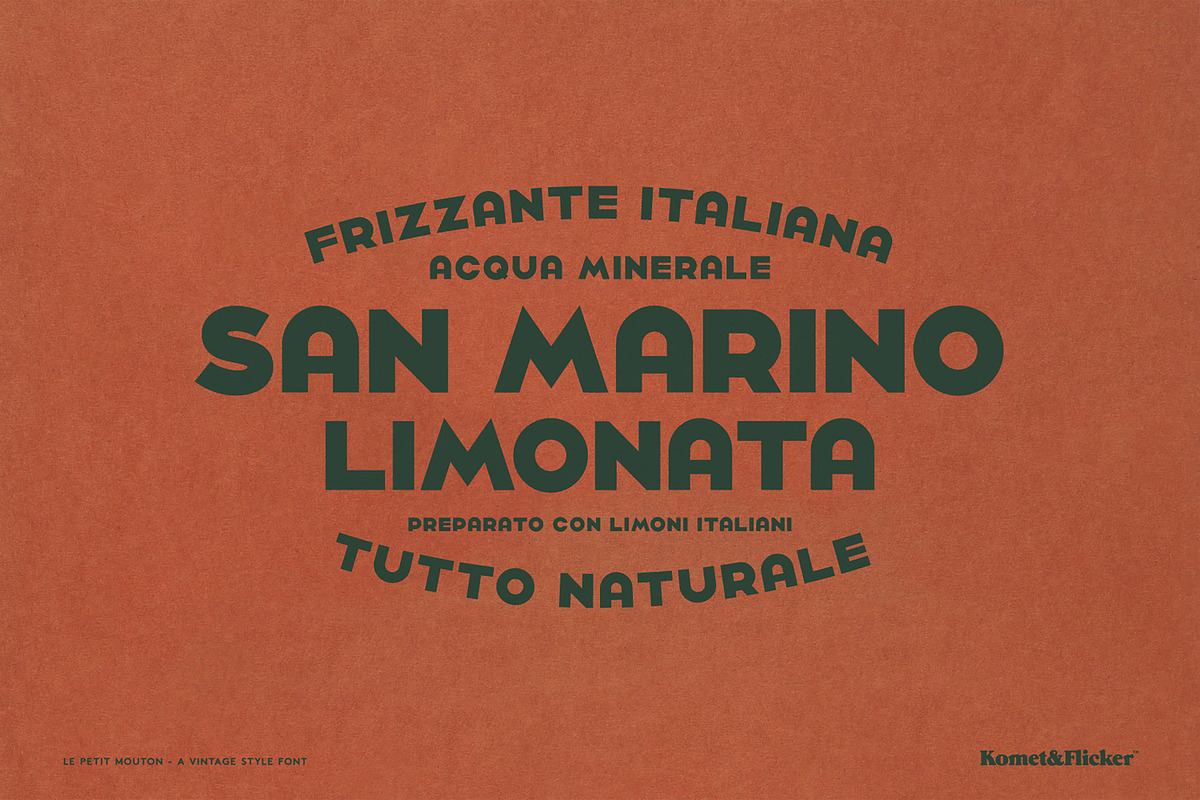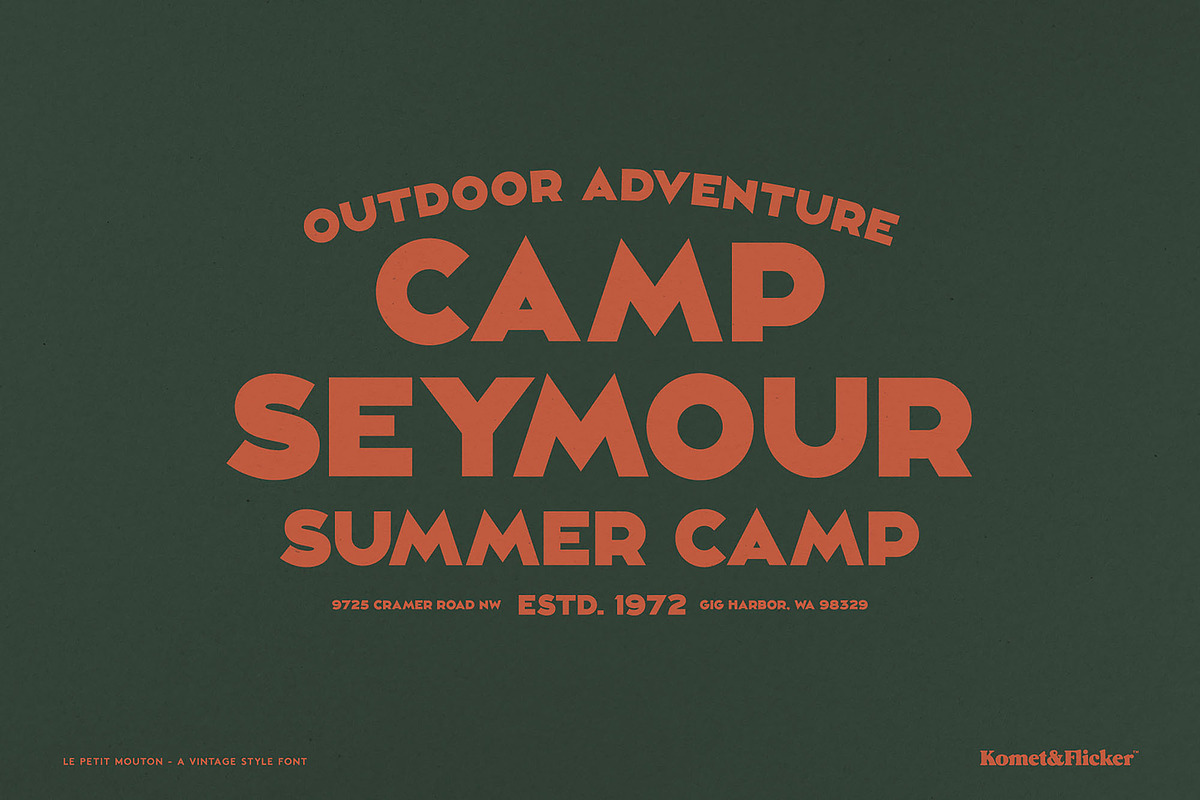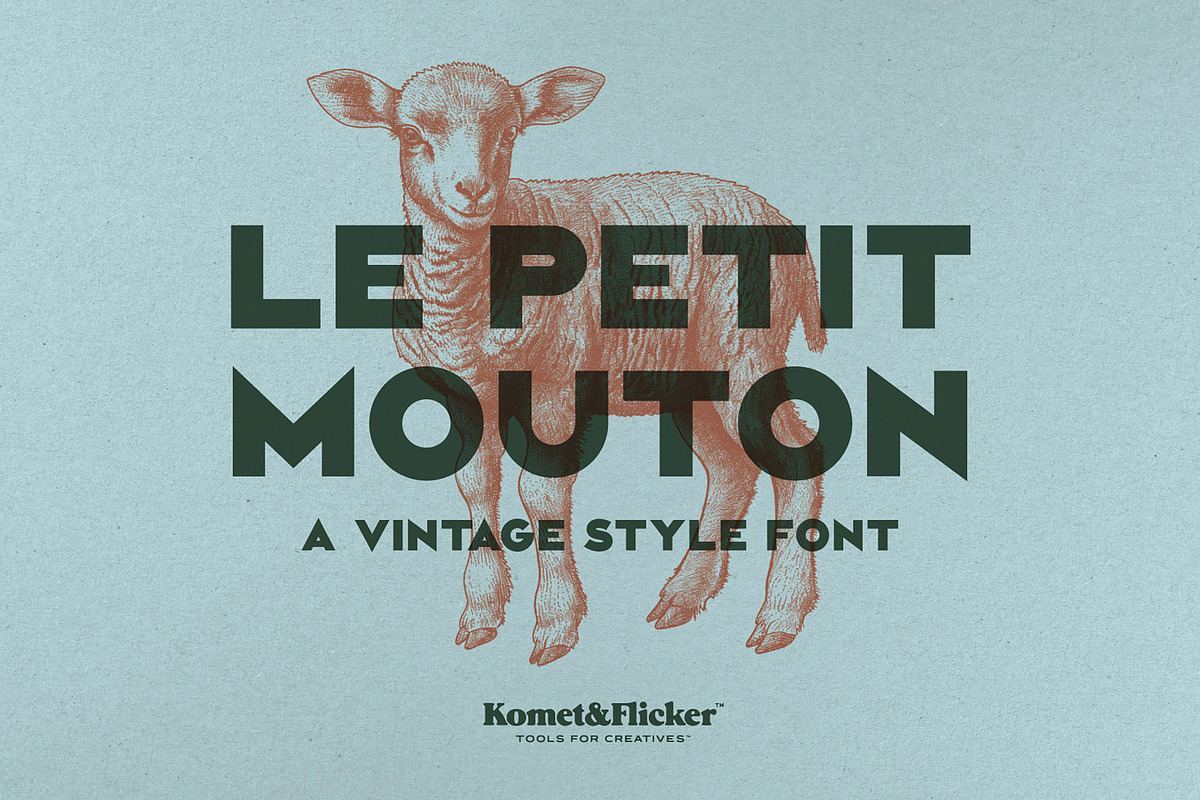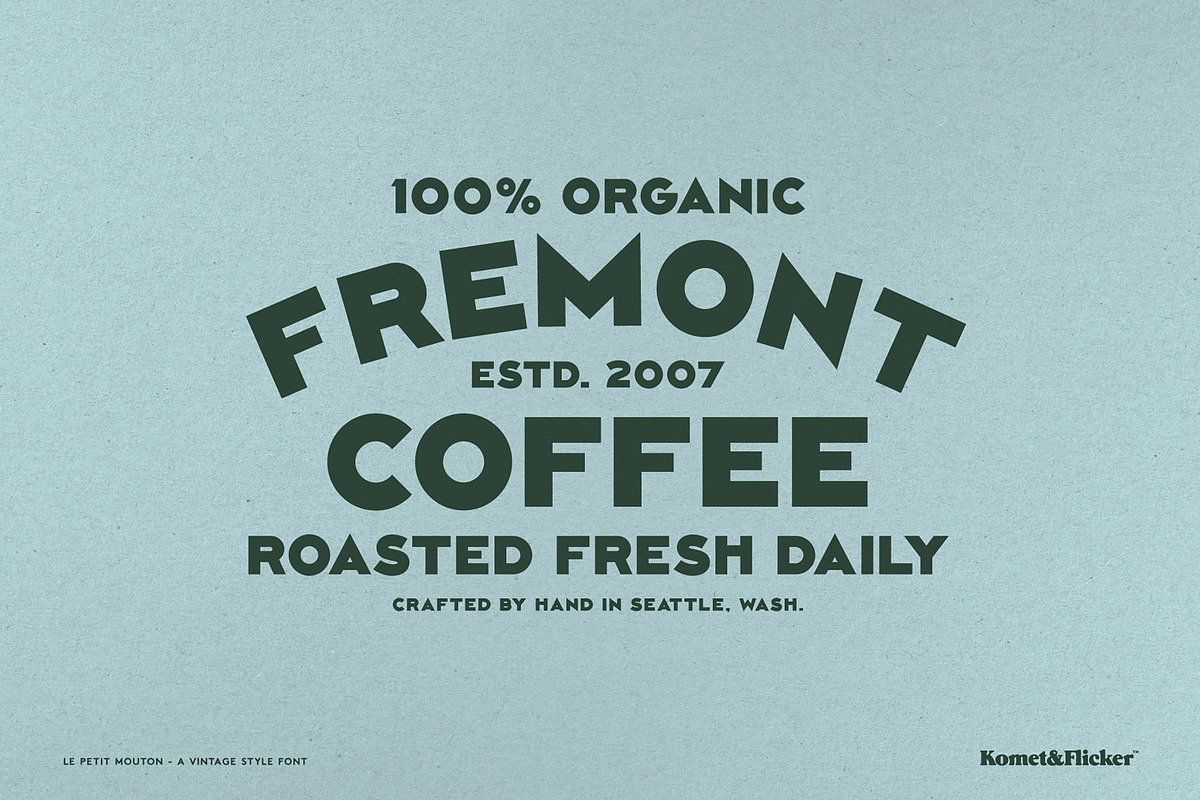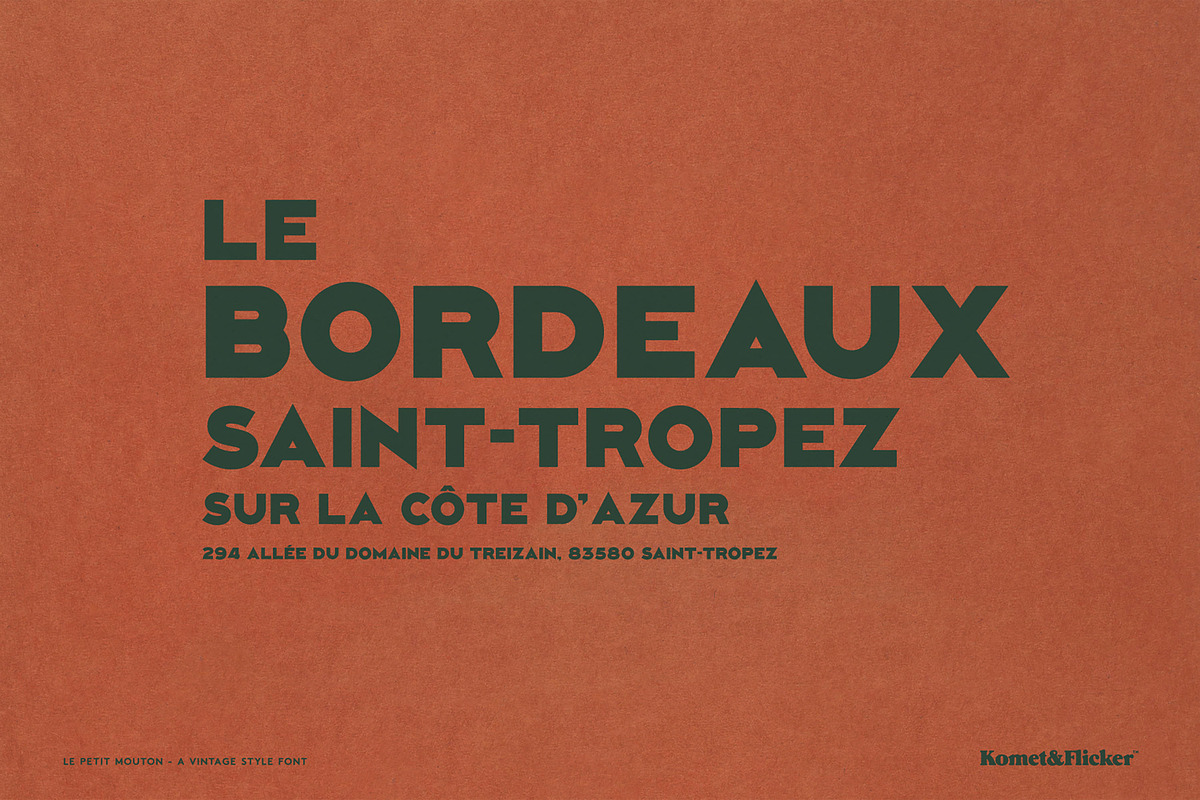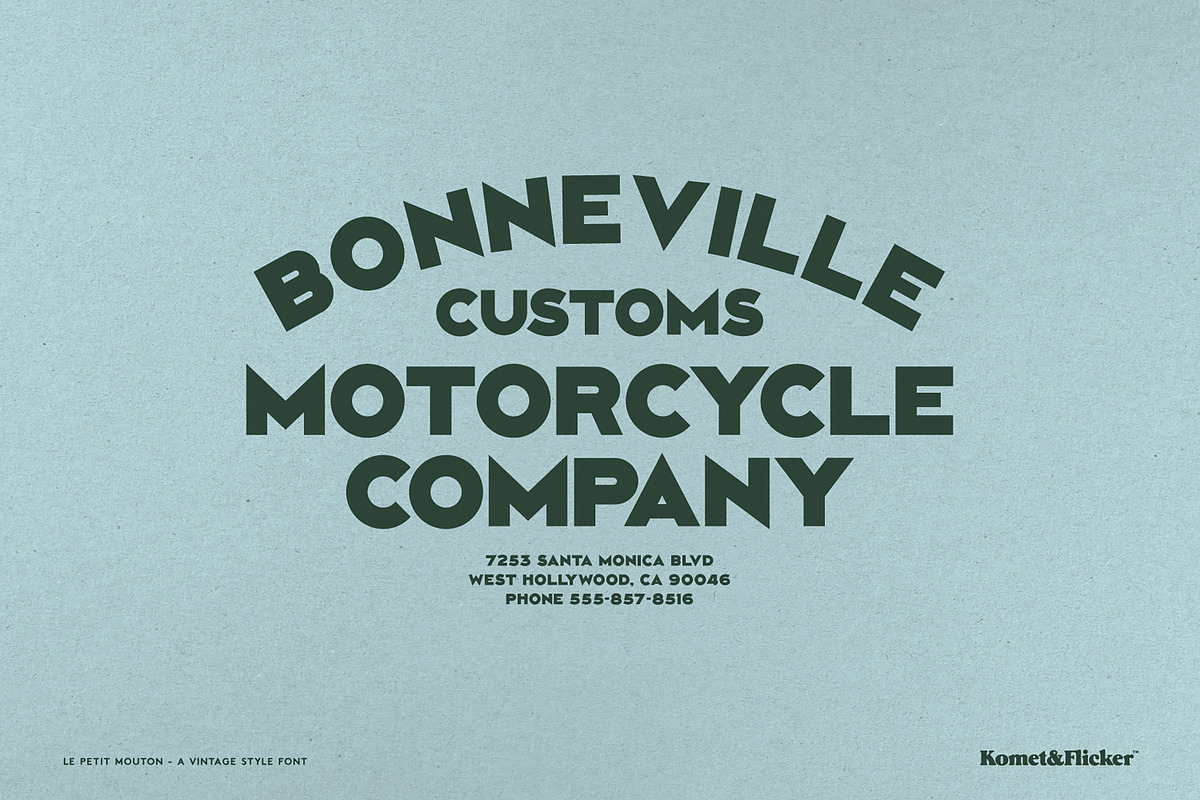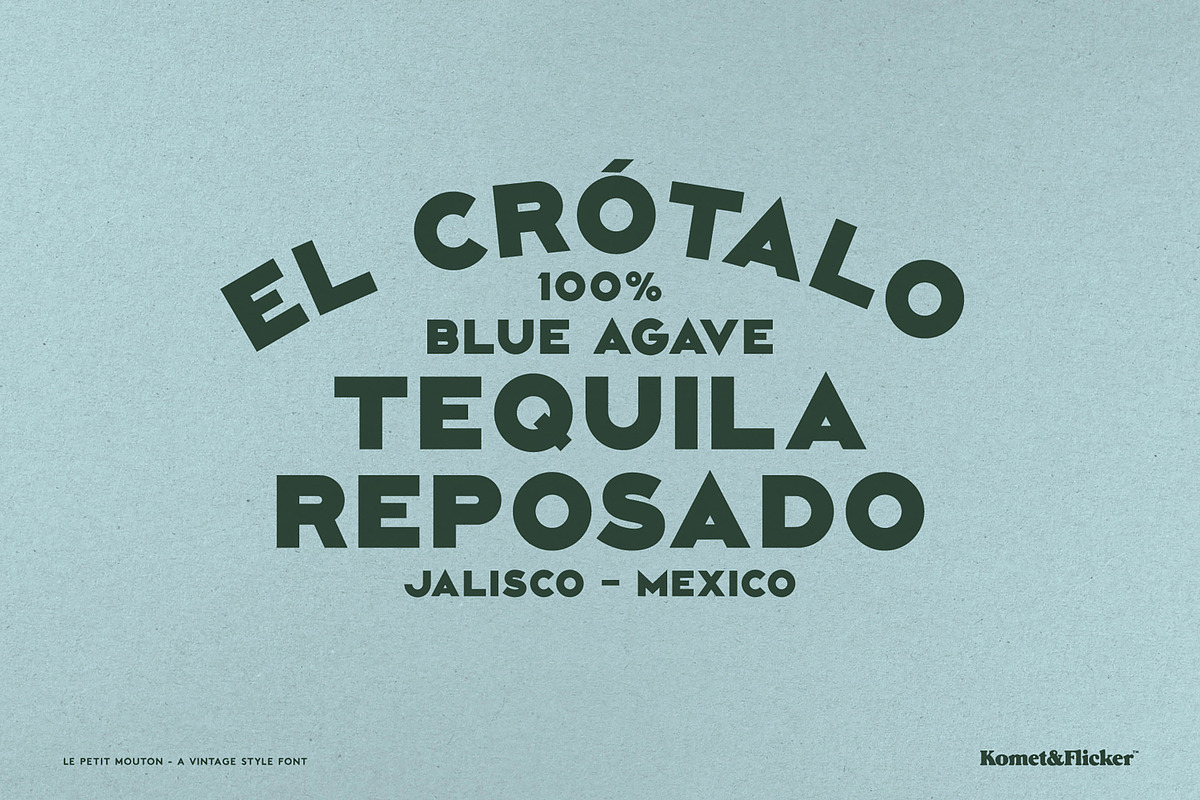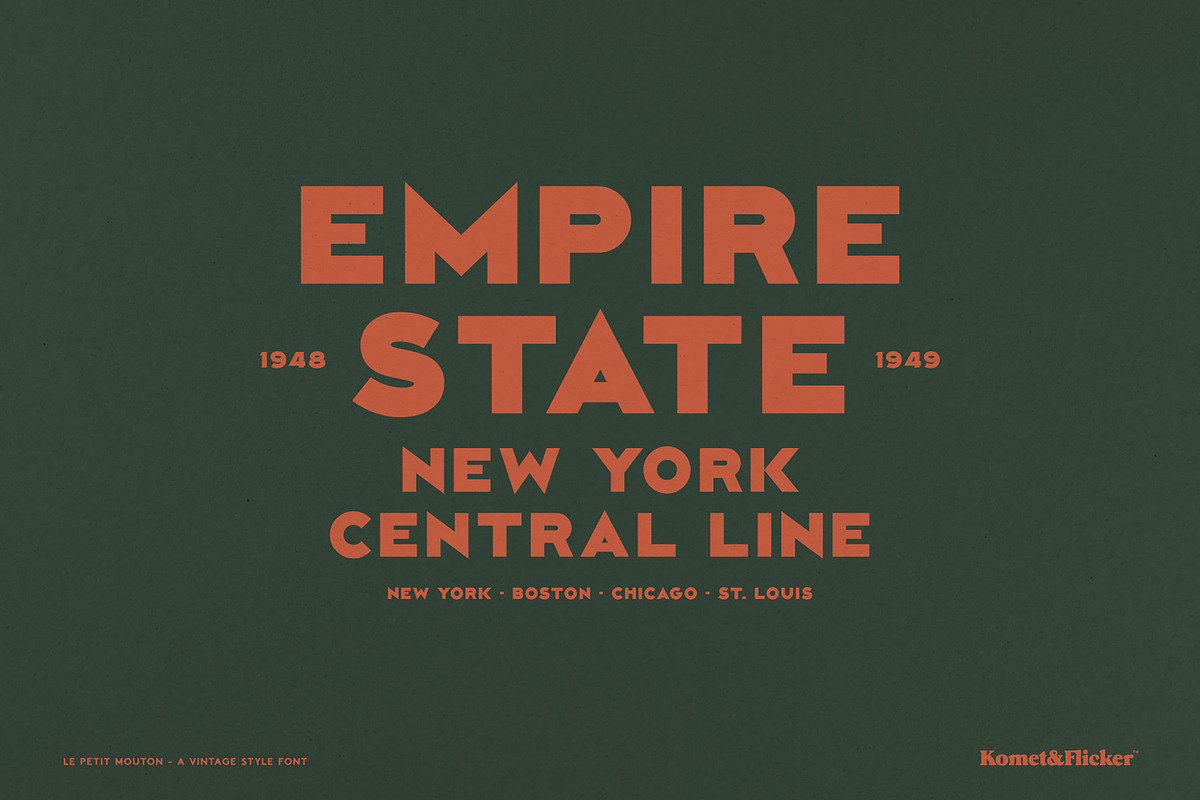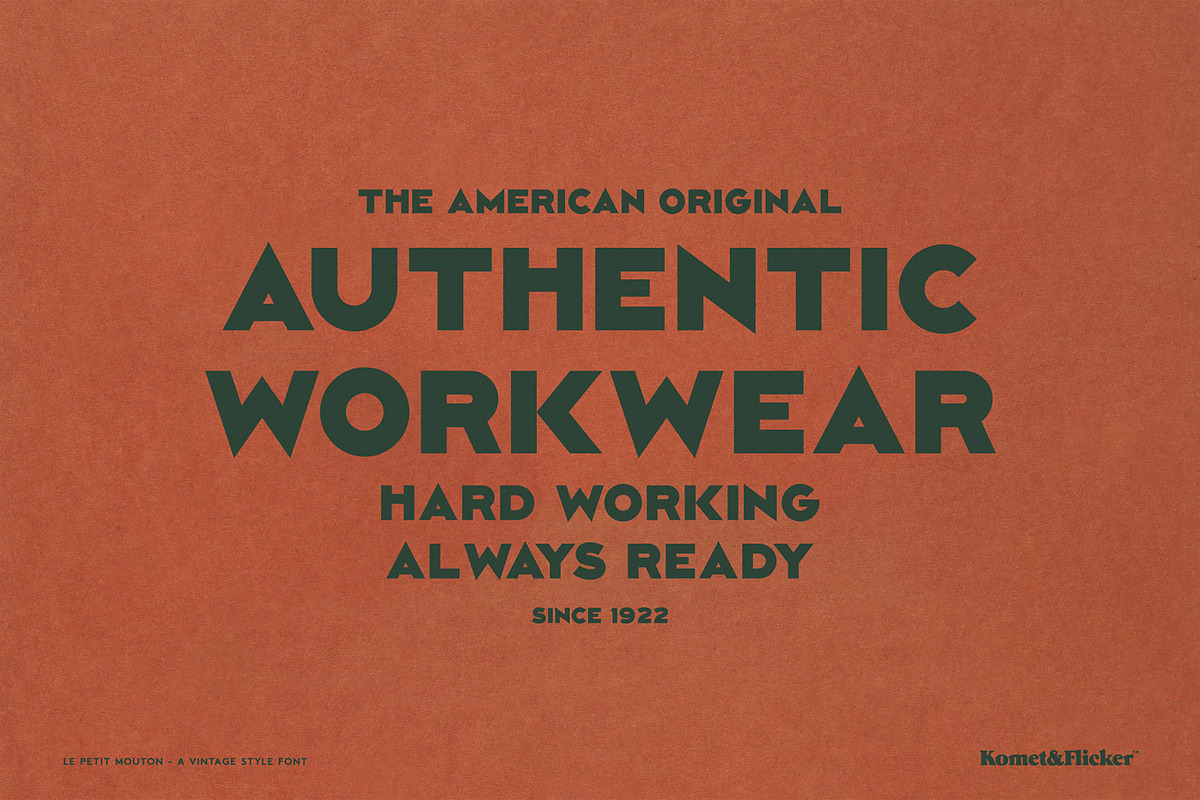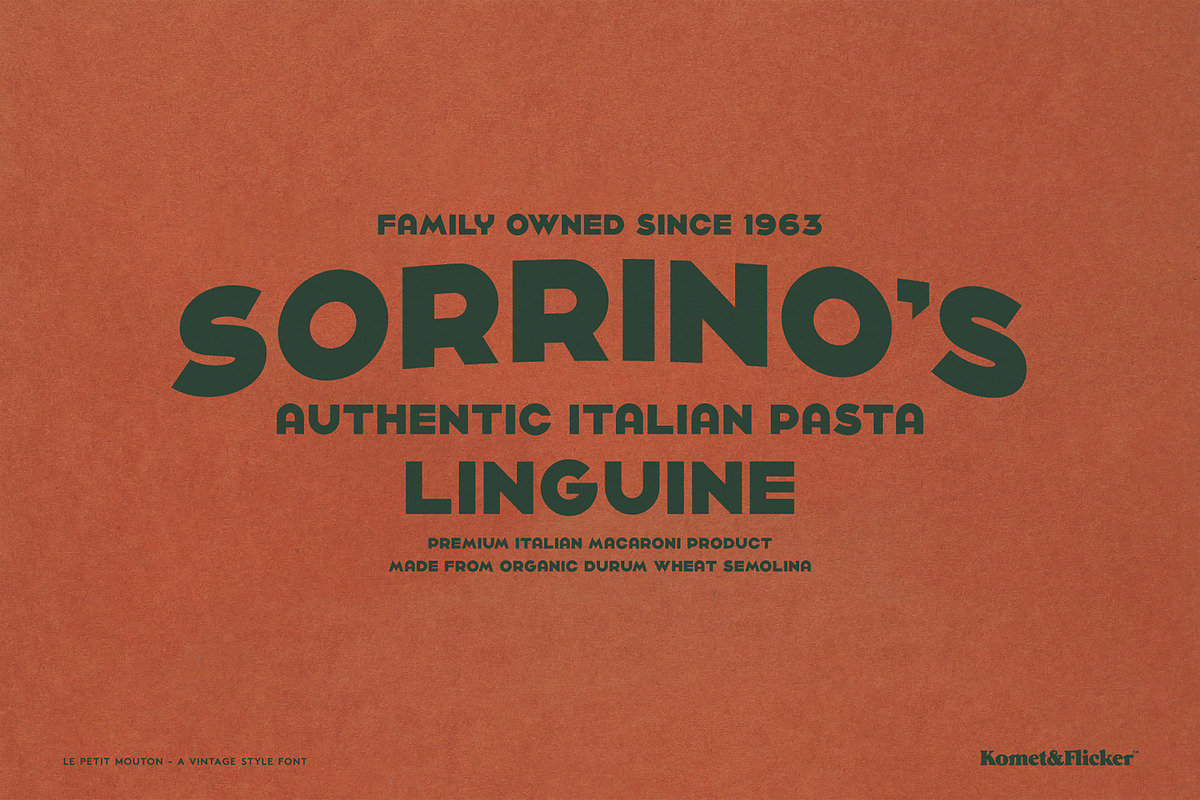
Le Petit Mouton
Le Petit Mouton is a display typeface steeped in the charm of the hand-lettered artistry of vintage French posters and the elegant typography found on classic wine labels. Every letterform carries the warmth and character of old-world craftsmanship, making it the perfect choice for projects that call for a touch of vintage romance and nostalgia.
Rendered in capitals, Le Petit Mouton commands attention with confident, expressive letterforms suited to headlines, branding, packaging, and editorial design. To further expand your creative possibilities, the font includes alternate options for 15 glyphs, giving you the flexibility to tailor your lettering and add subtle variation to your compositions.
THIS FONT INCLUDES
Full A-Z basic latin characters
Set of alternate letters for: A B C E F H J K M N P R W X Y
Select European specific characters
Numbers, punctuation, and select symbols
Pre-made common fractions in two styles